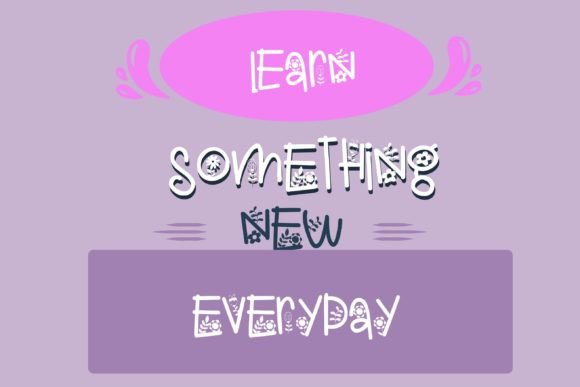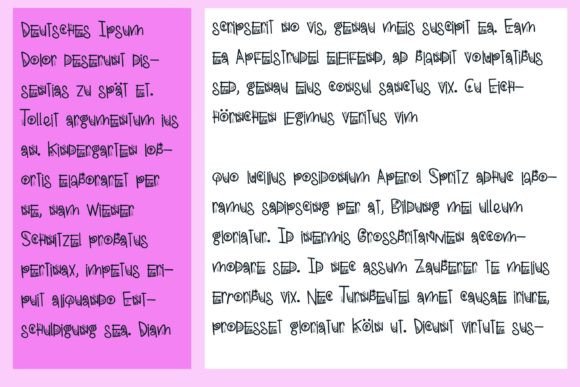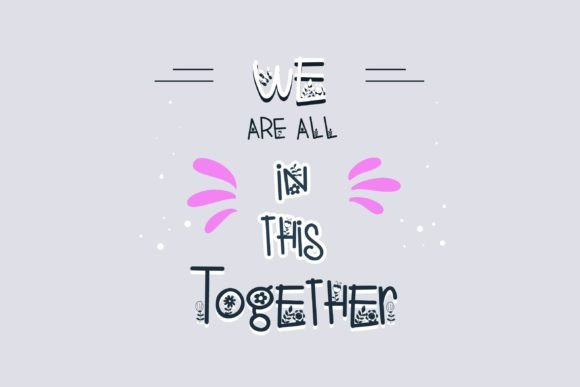
Introduction to Gidber-garden Font
Gidber-Garden is a playful and whimsical font.
It has no letters that go below the line, making it neat and tidy The letters are decorated with fun, floral designs, adding a touch of garden-like charm.
Key Features of Gidber-garden Font
Why Choose Gidber-garden Font?